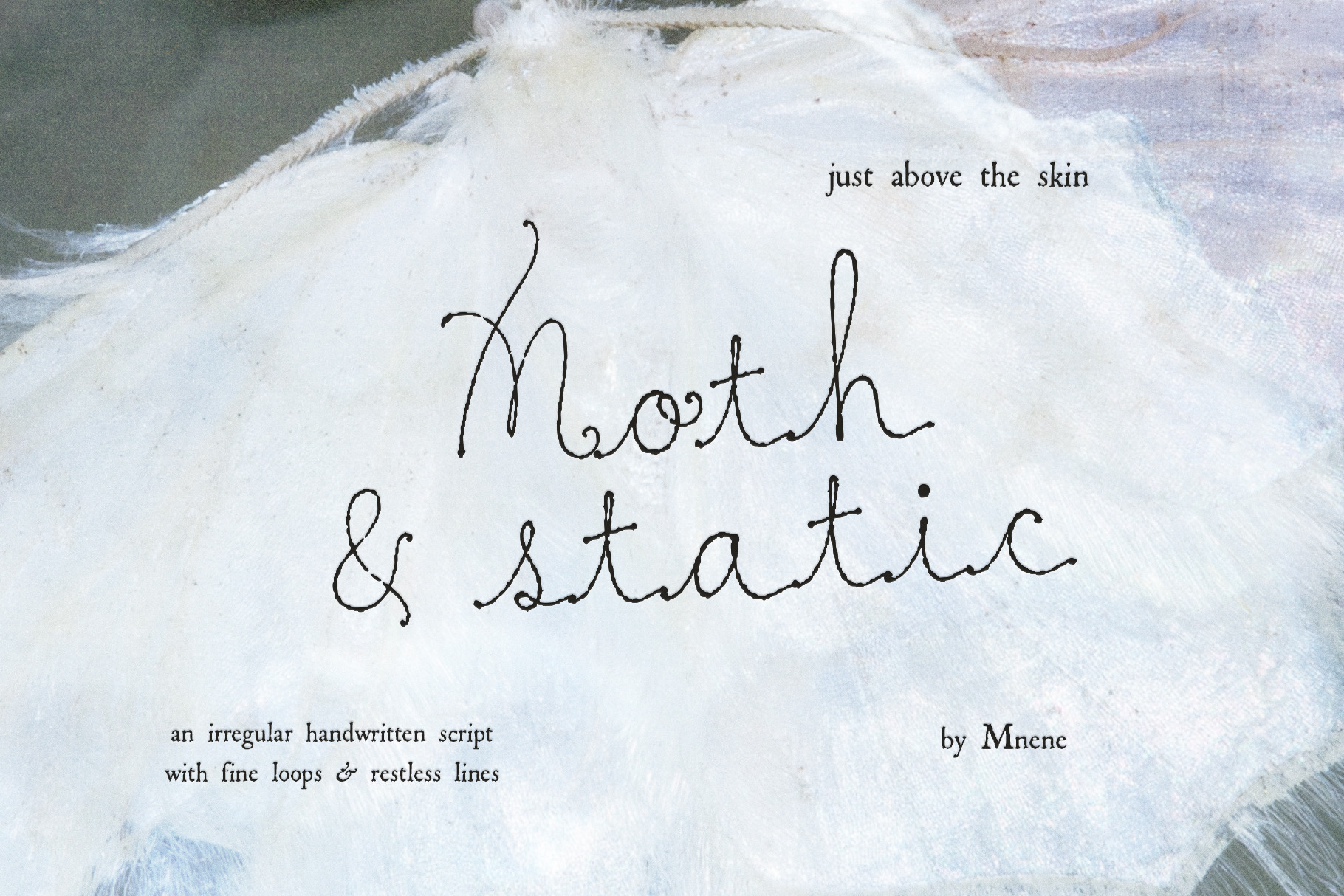
Moth & Static Handwritten Font
Moth & Static is an irregular handwritten font with fine lines, elongated capitals and delicate looping details. Its shifting proportions and lightly unpolished forms preserve the intimacy of real handwriting while giving titles and short passages a distinctive, expressive rhythm.
The font includes uppercase and lowercase characters, numbers, punctuation, symbols and a small selection of alternate letterforms. These subtle variations provide extra flexibility without changing the font’s recognisable character.
Moth & Static works particularly well for editorial layouts, branding, packaging, book covers, posters, invitations, stationery, personal notes, art prints and handwritten accents.
Selected letter alternates